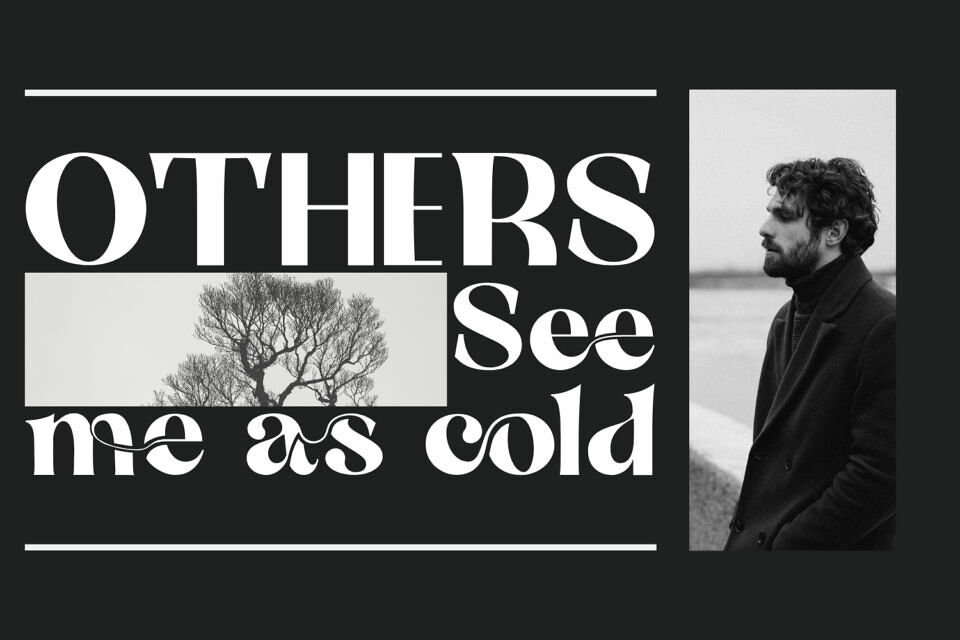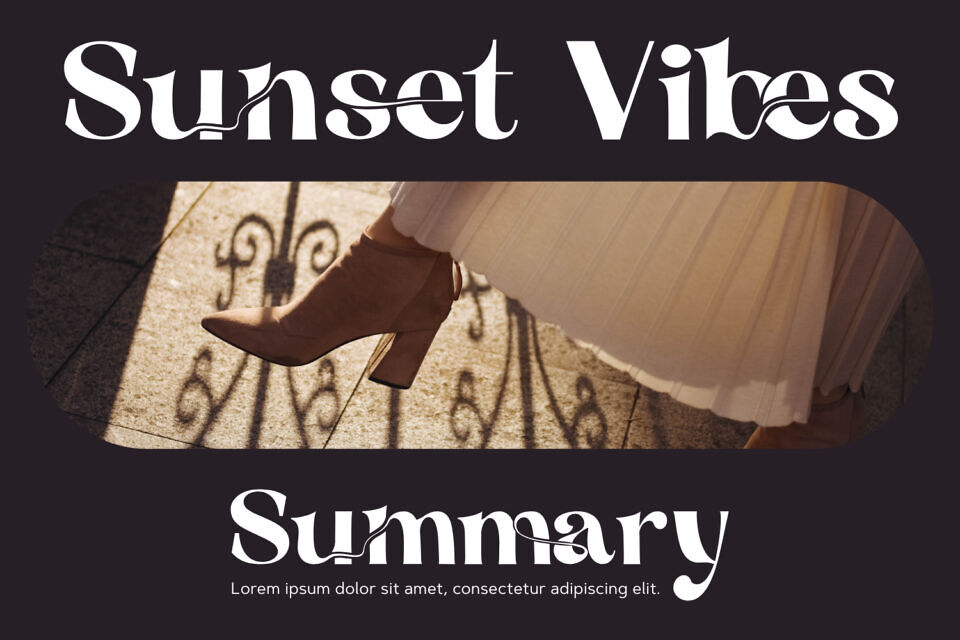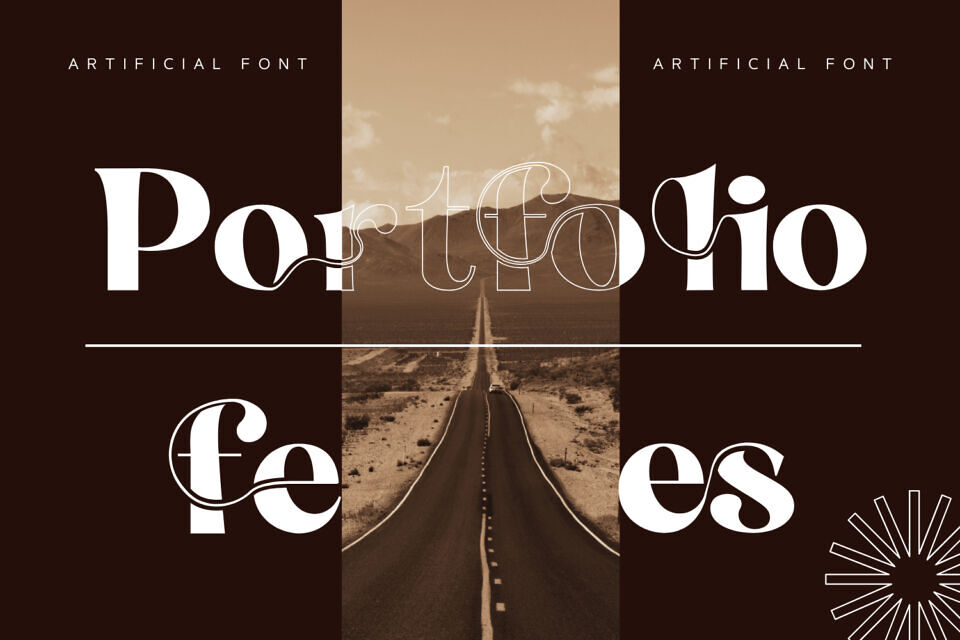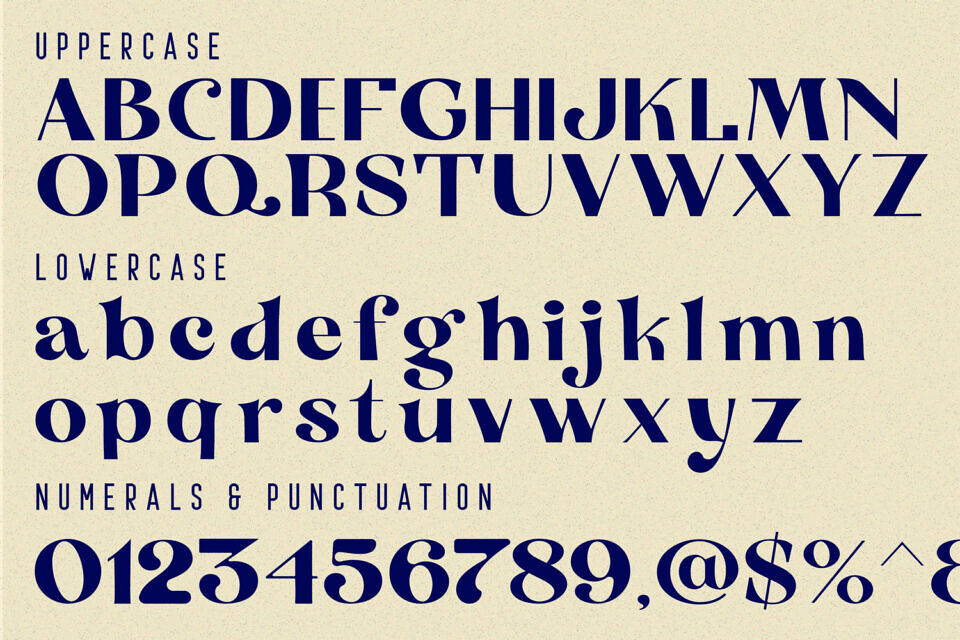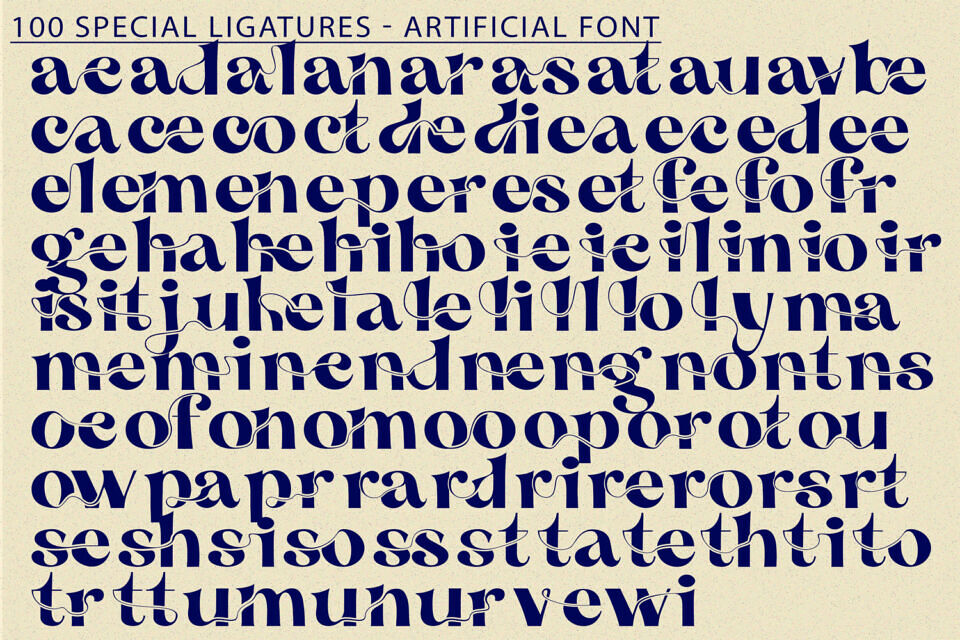
Introducing Artificial, a stunning Modern Serif Display Font crafted for those who seek elegance and sophistication in their designs. With a perfect blend of classic serif elements and stylish swashes, this font is ideal for luxury branding, editorial designs, wedding invitations, and high-end fashion projects.